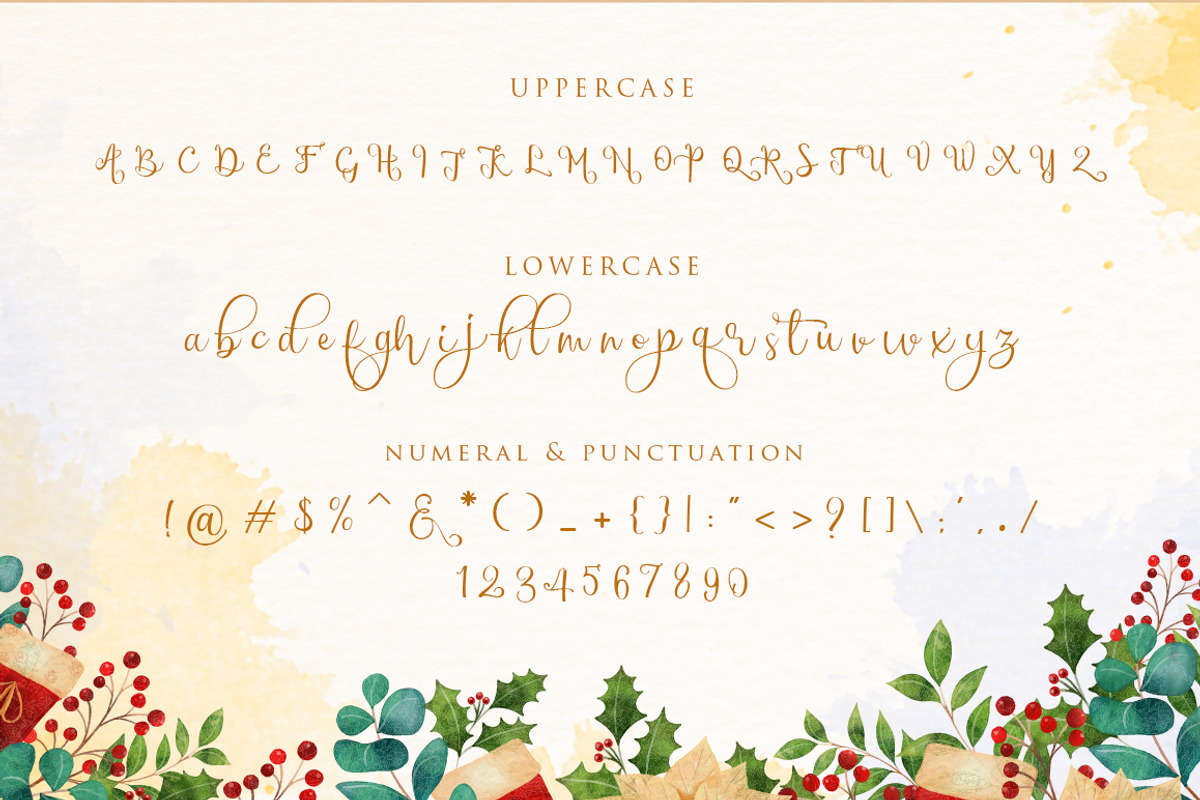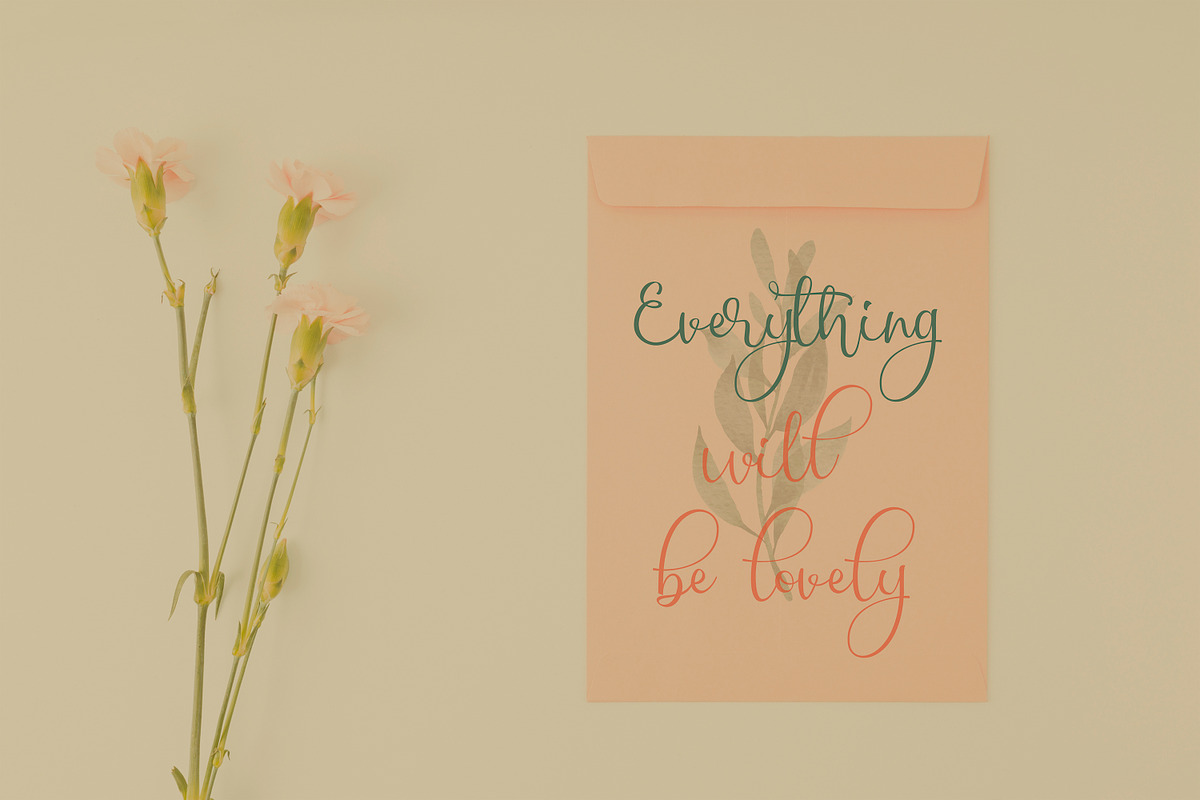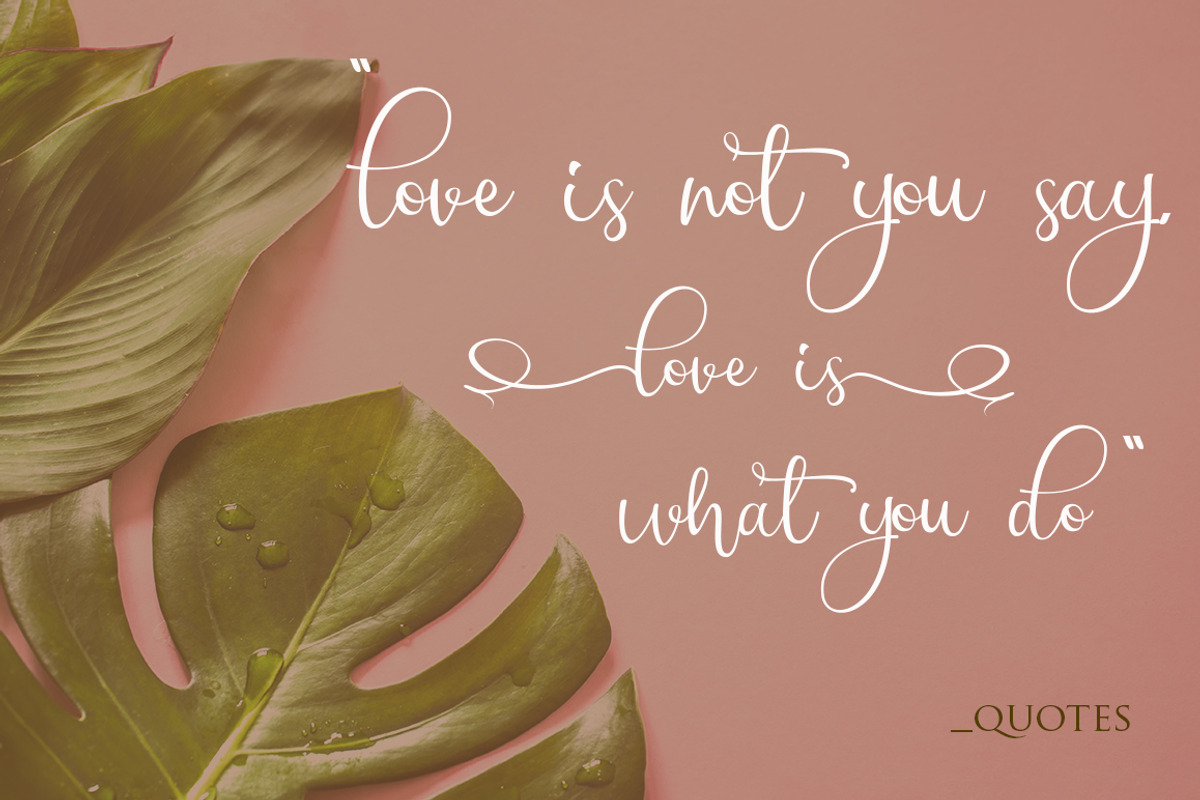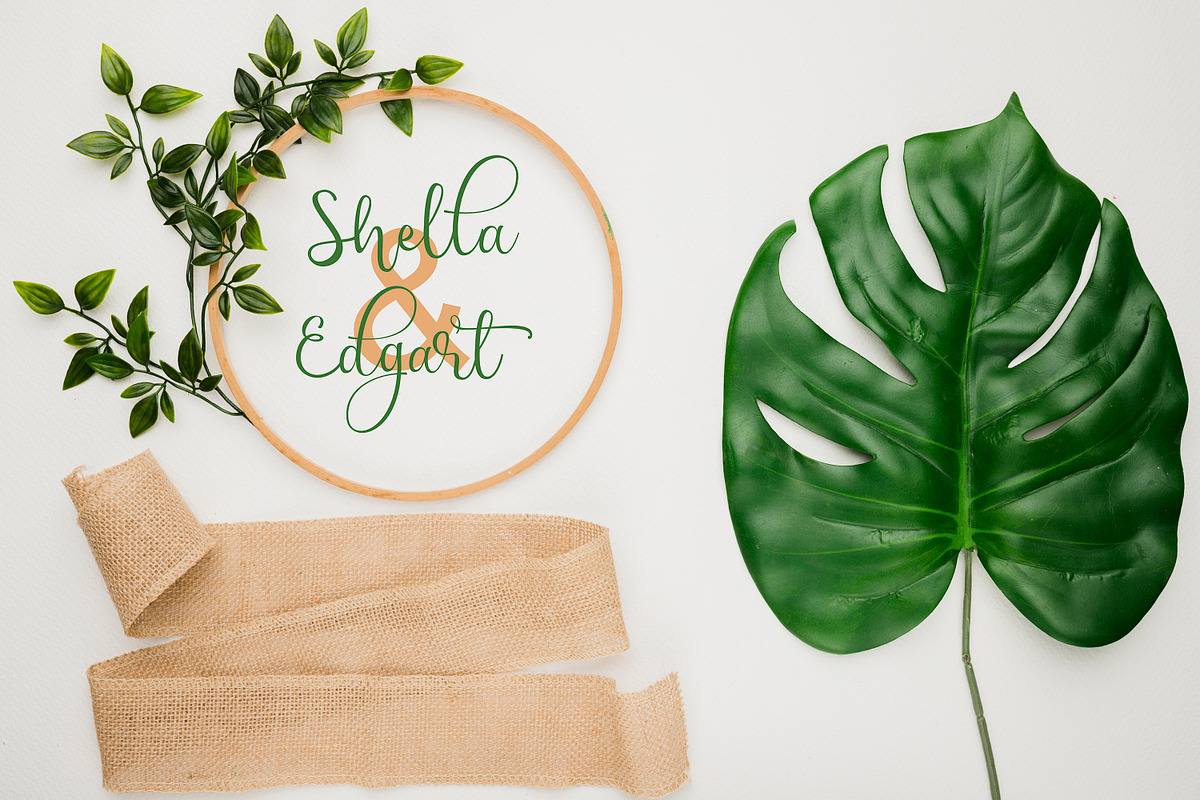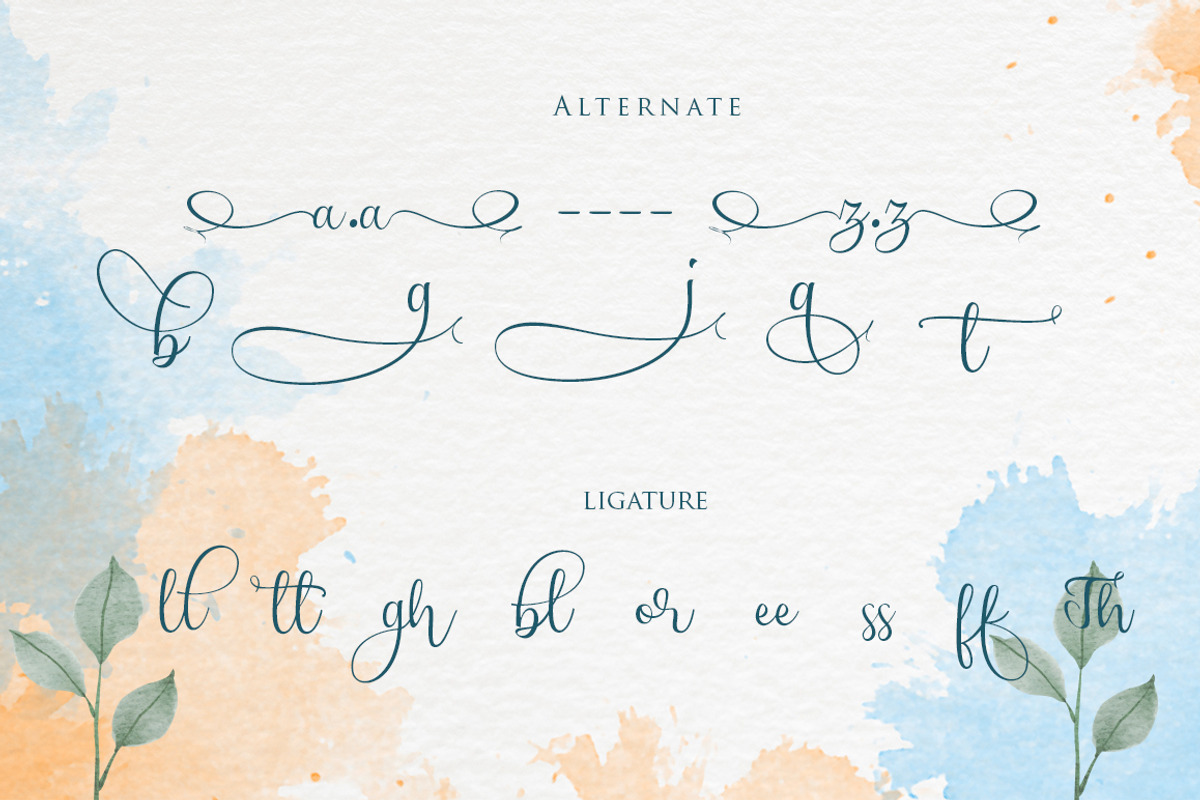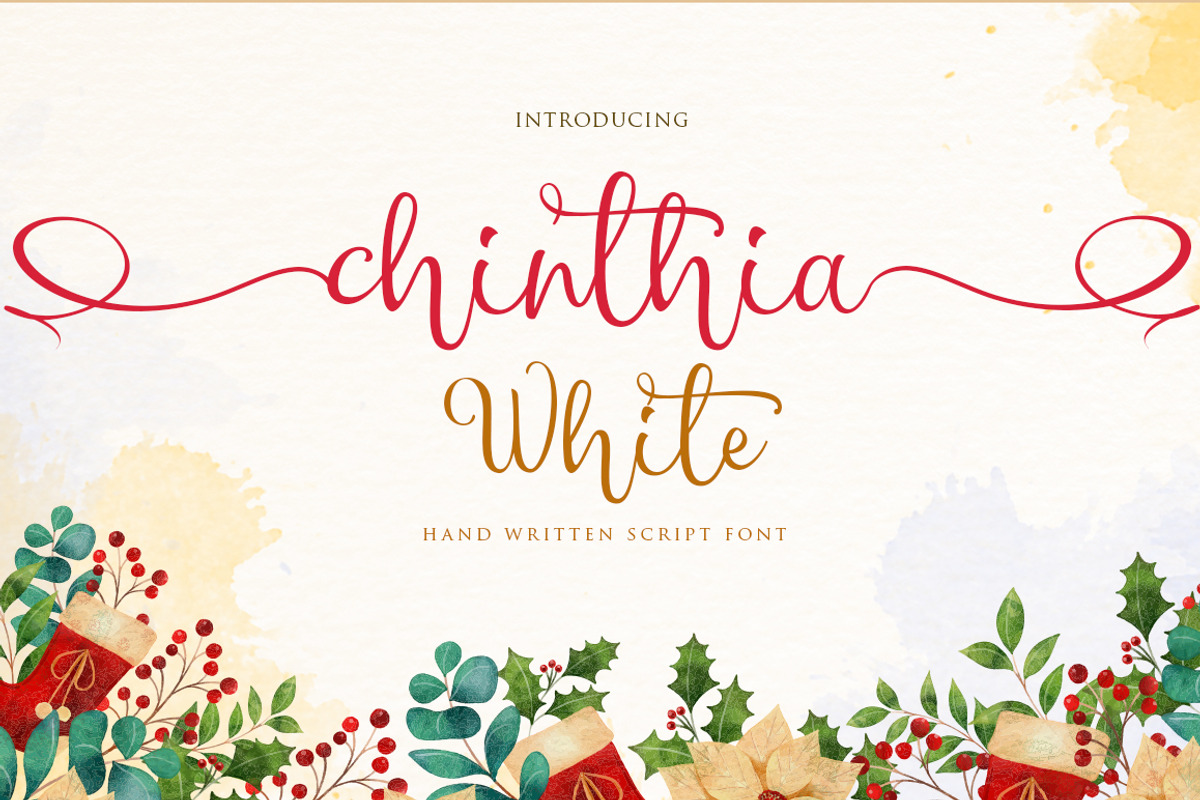
Chinthia white
Chinthia white is a modern calligraphy handwritten font with
the current handwriting style, this font is perfect for branding,
wedding invites, magazines, mugs, business cards, quotes, posters, and
more, you can try first if you want to buy this font.
Chinthia white is equipped with 332 glyphs. and
by having many of these glyphs there will be able to choose the letters
according to your likes, lots of variations and options for each letter,
so you can customize on your design choices.